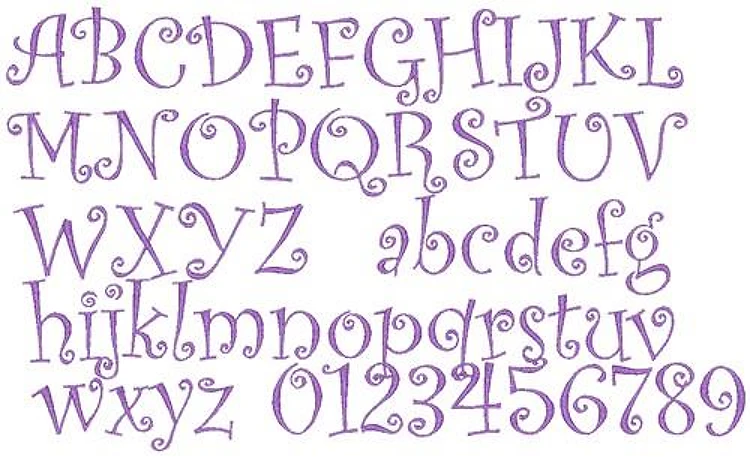
Playful and curly lowercase embroidery font ideal for a variety of fabric projects like curtains or home decor. Available in PES, DST, and 7 other formats.